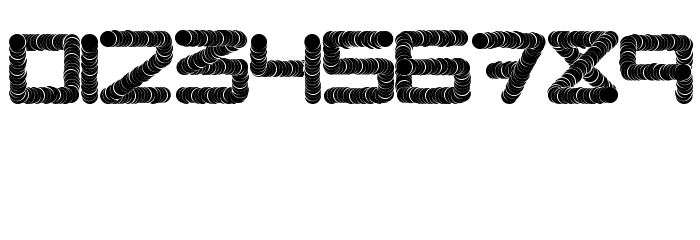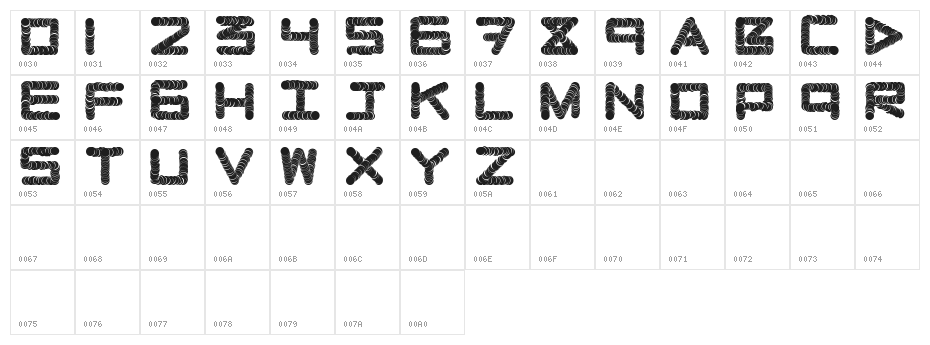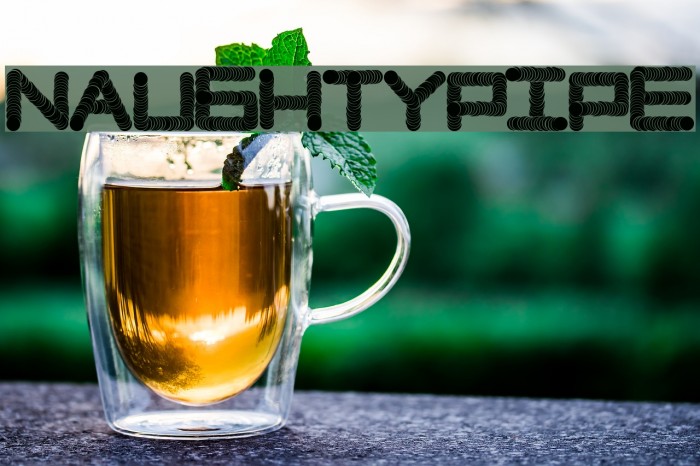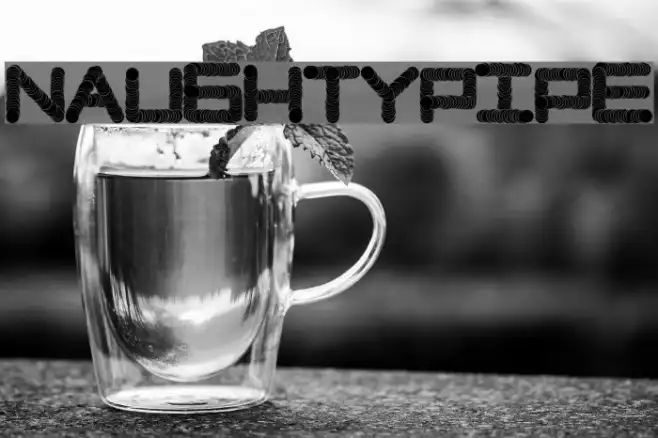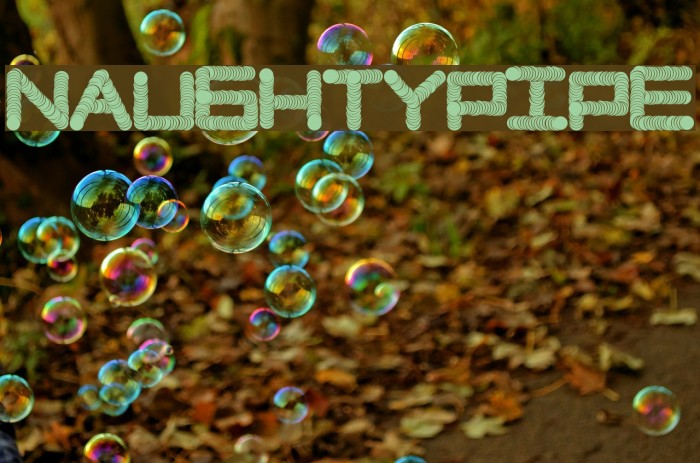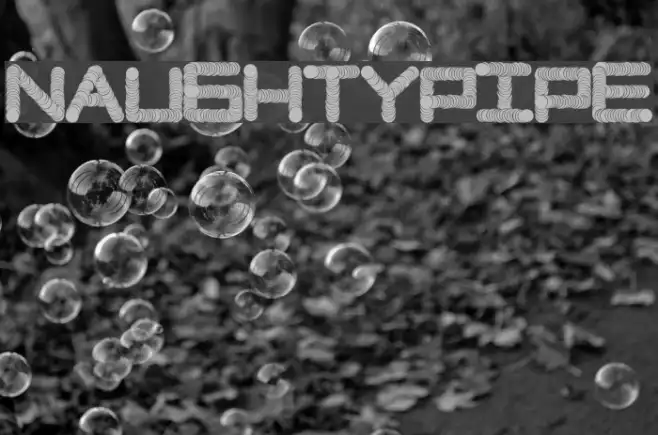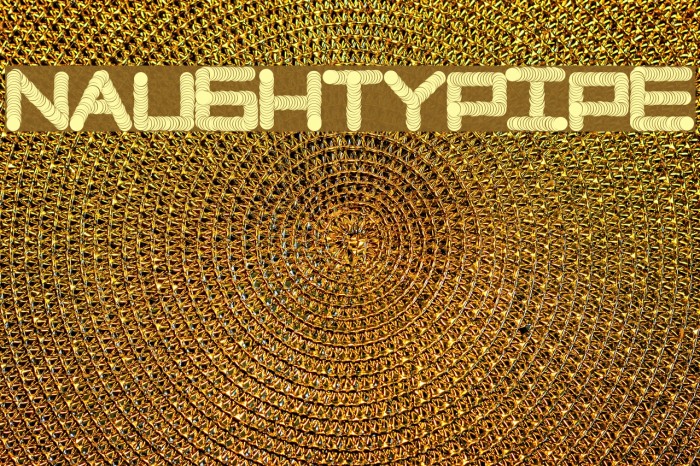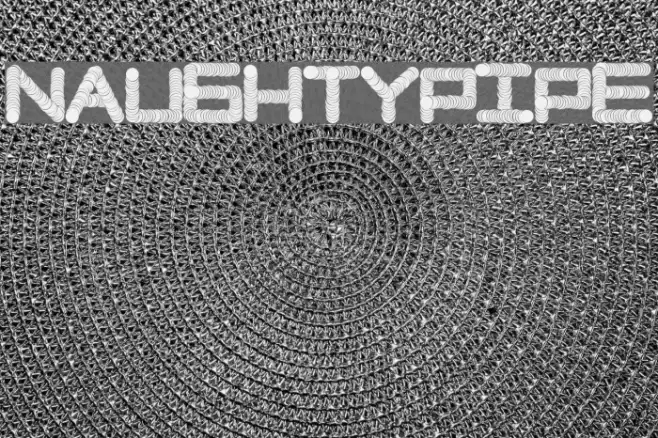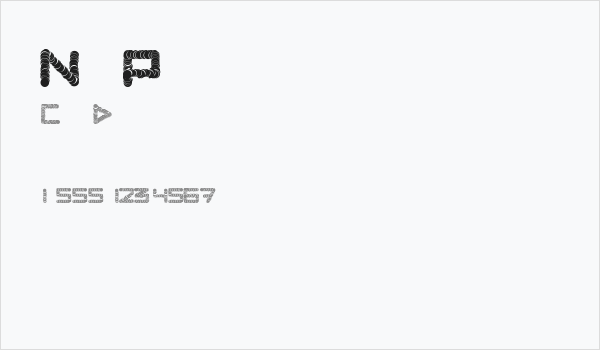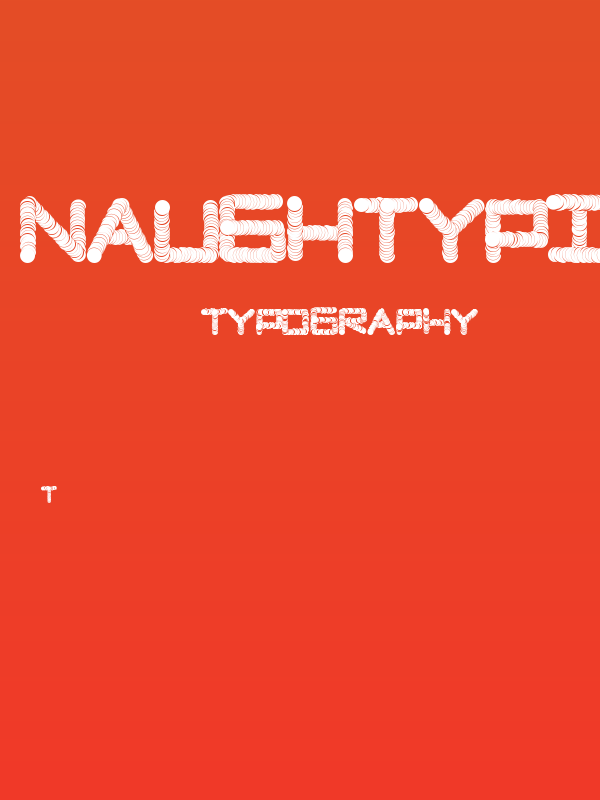
NaughtyPipe Font
NaughtyPipe Description
This font features a unique and playful design, characterized by its bold, rounded shapes that resemble a series of interconnected pipes or coils. The letters are constructed with a consistent thickness, creating a uniform appearance across both uppercase and lowercase alphabets. The style is highly decorative, making it stand out with its intricate pattern that adds a sense of movement and energy. The numbers and special characters follow the same design principles, ensuring a cohesive look throughout. This font's distinctive style makes it ideal for creative and eye-catching projects.
| Use Case | Logos, Posters, Branding |
| Proposed Projects | Ideal for posters, logos, branding, and any project requiring a bold, decorative touch. |